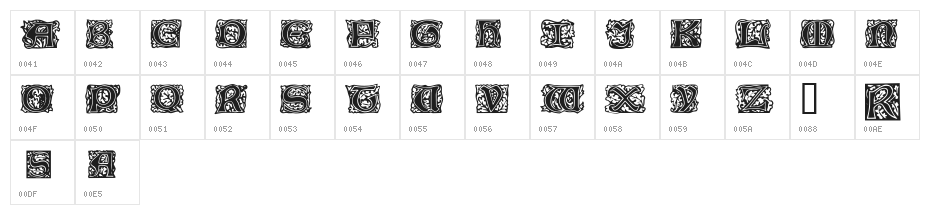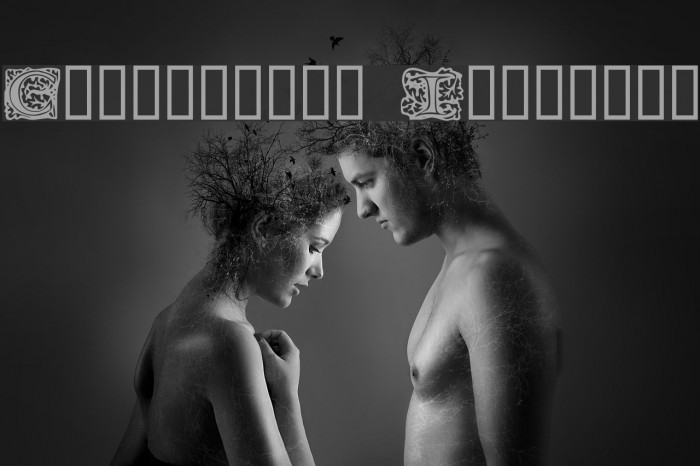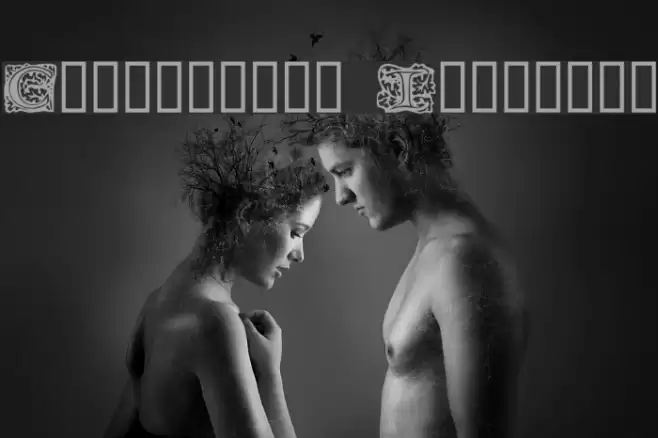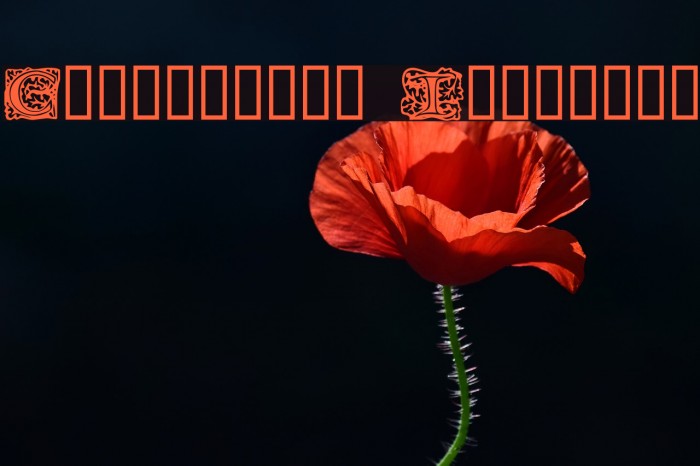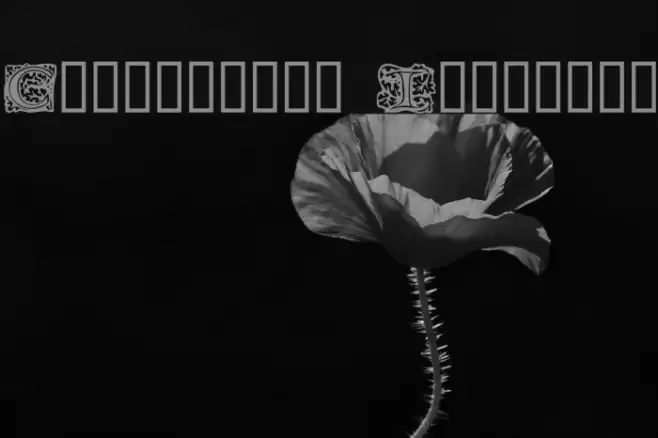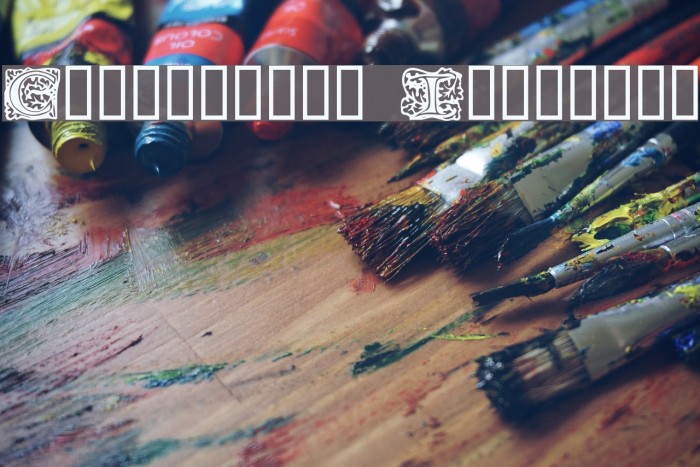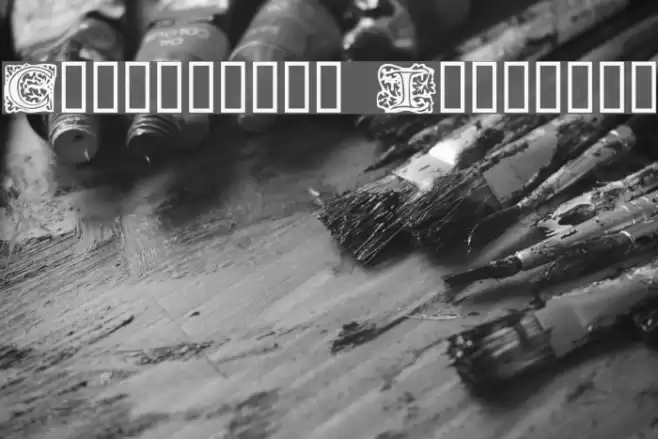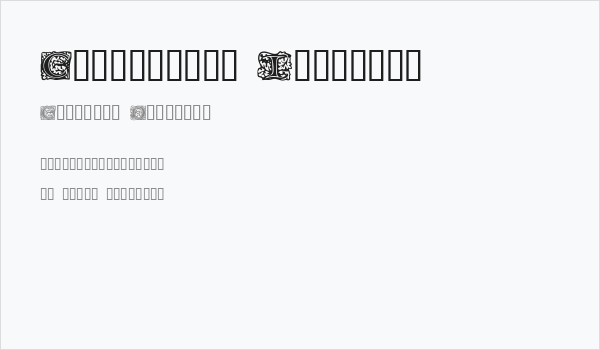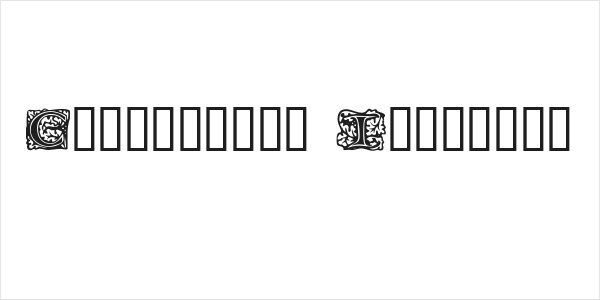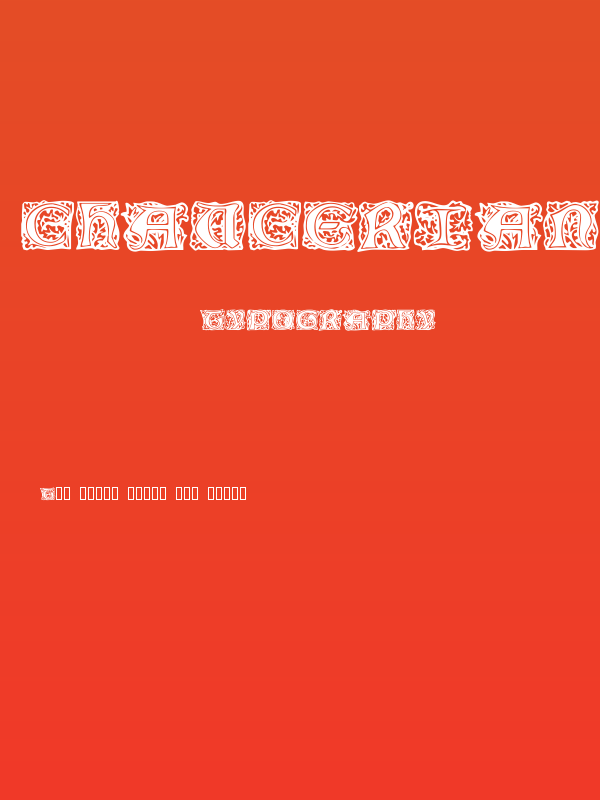
Chaucerian Initials Font
Chaucerian Initials Description
This font is an ornate and decorative typeface that features intricate designs within each letter. The uppercase letters are embellished with elaborate floral and vine motifs, giving them a medieval and gothic appearance. The style is reminiscent of illuminated manuscripts, with each character appearing as a work of art. The font is highly detailed, making it suitable for decorative purposes rather than body text. Its unique and artistic design makes it ideal for projects that require a historical or vintage aesthetic.
| Proposed Projects | Ideal for use in historical-themed projects, wedding invitations, book covers, and decorative headings. |